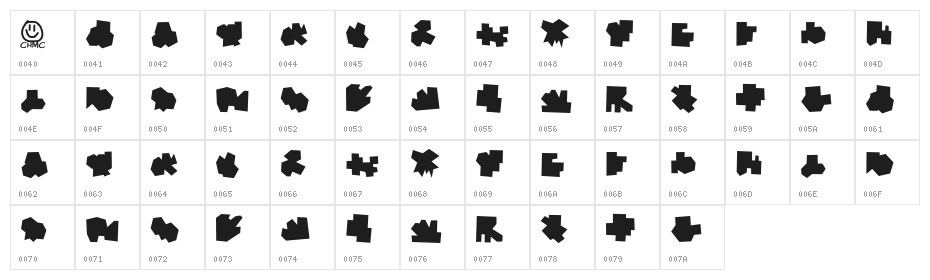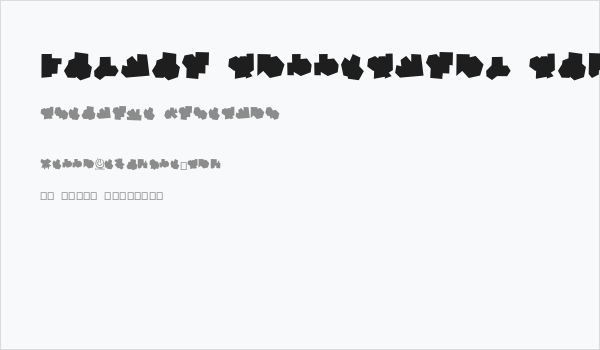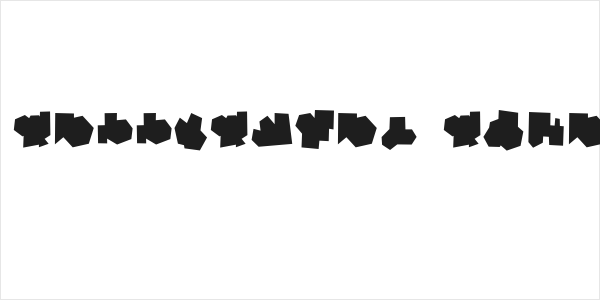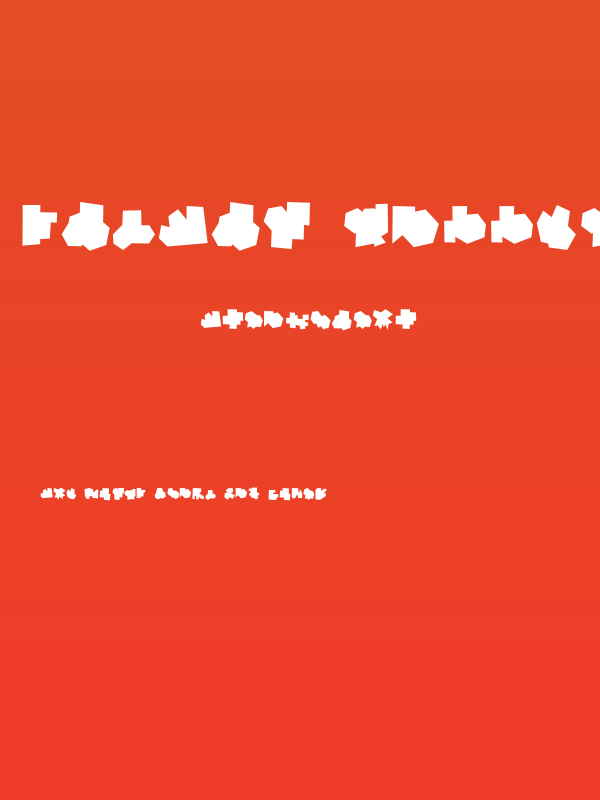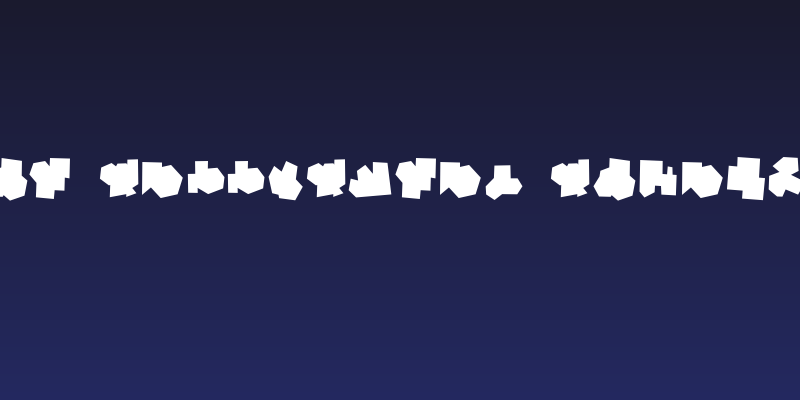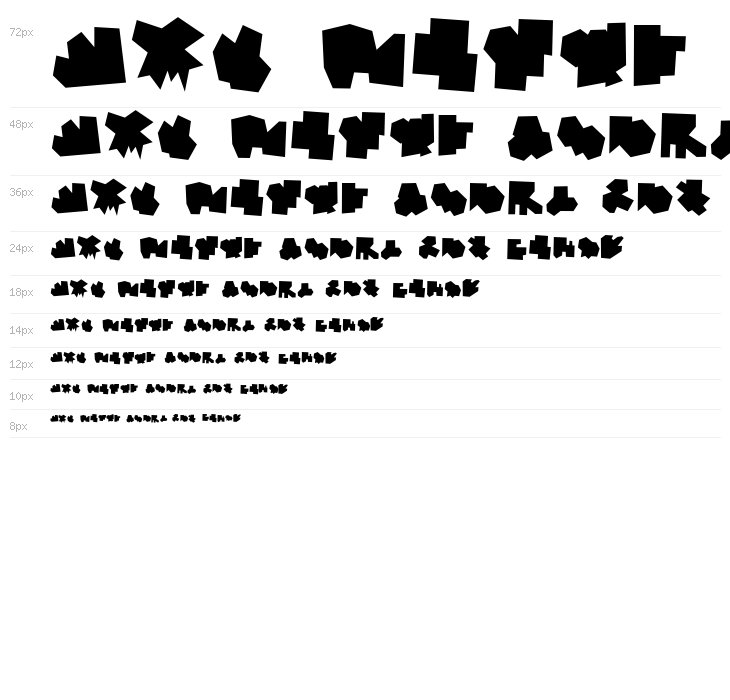
Kantai Collection Camouflage Font
Kantai Collection Camouflage Description
This font features a highly abstract and geometric design, with each character resembling a unique, irregular shape. The letters are bold and blocky, with sharp angles and a camouflage-like appearance that gives them a distinct, rugged look. The uppercase and lowercase letters maintain a consistent style, making them easily recognizable despite their unconventional forms. The numbers and special characters follow the same design principles, ensuring uniformity across the entire set. This font's unique style makes it stand out, offering a modern and artistic flair.
| Proposed Projects | Ideal for creative projects such as posters, album covers, or video game graphics where a bold, artistic statement is desired. |